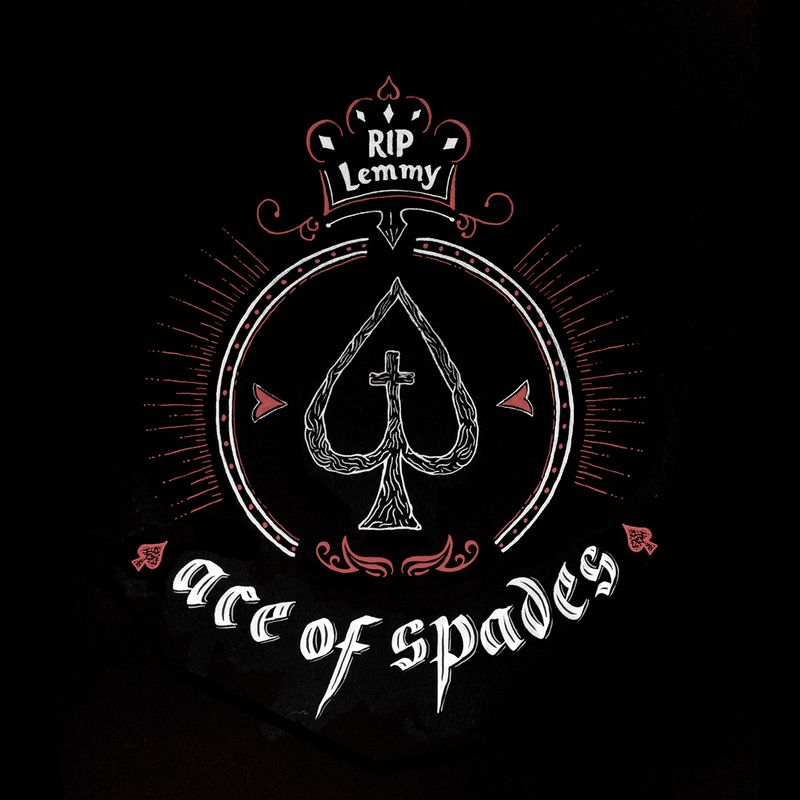
BRVTS Typeface
• Matheus Mendes
BRVTS is a typeface project of my Master's Degree in Advanced Typography in EINA. The briefing was to create a typographic family for a men's magazine, where the challenge was to create a font to use either in texts and graphic resources